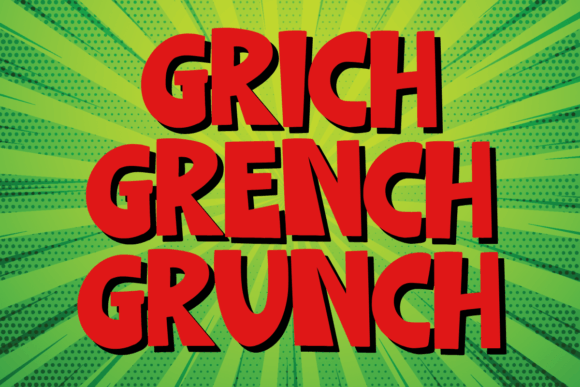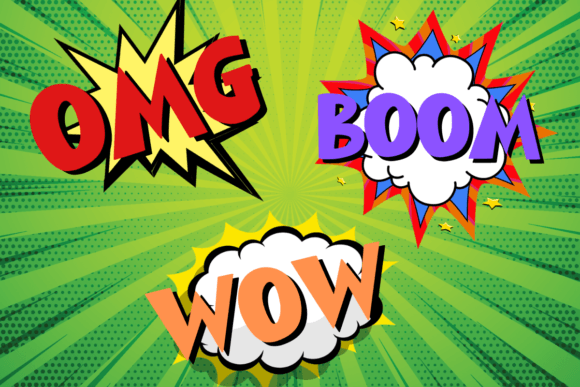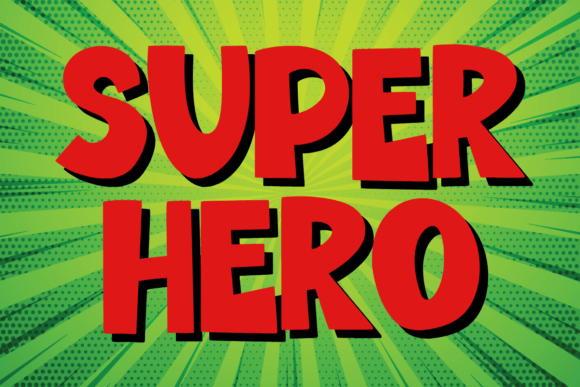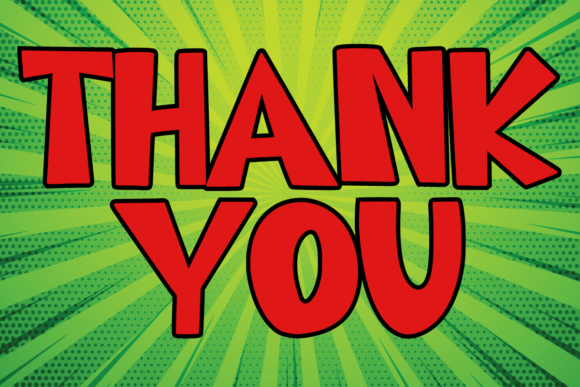
Introduction to Grinch Quirki Font
Grinch Quirki is a fun and quirky display font depicted with a touch of elegance, perfect for your favorite projects.
Fall in love with its incredibly distinct and timeless style, and use it to create spectacular designs .
Key Features of Grinch Quirki Font
Why Choose Grinch Quirki Font?
Grinch Quirki Font offers exceptional quality and versatility, making it a valuable addition to your design toolkit. Whether you’re creating for personal projects or commercial use, Grinch Quirki Font delivers professional results.